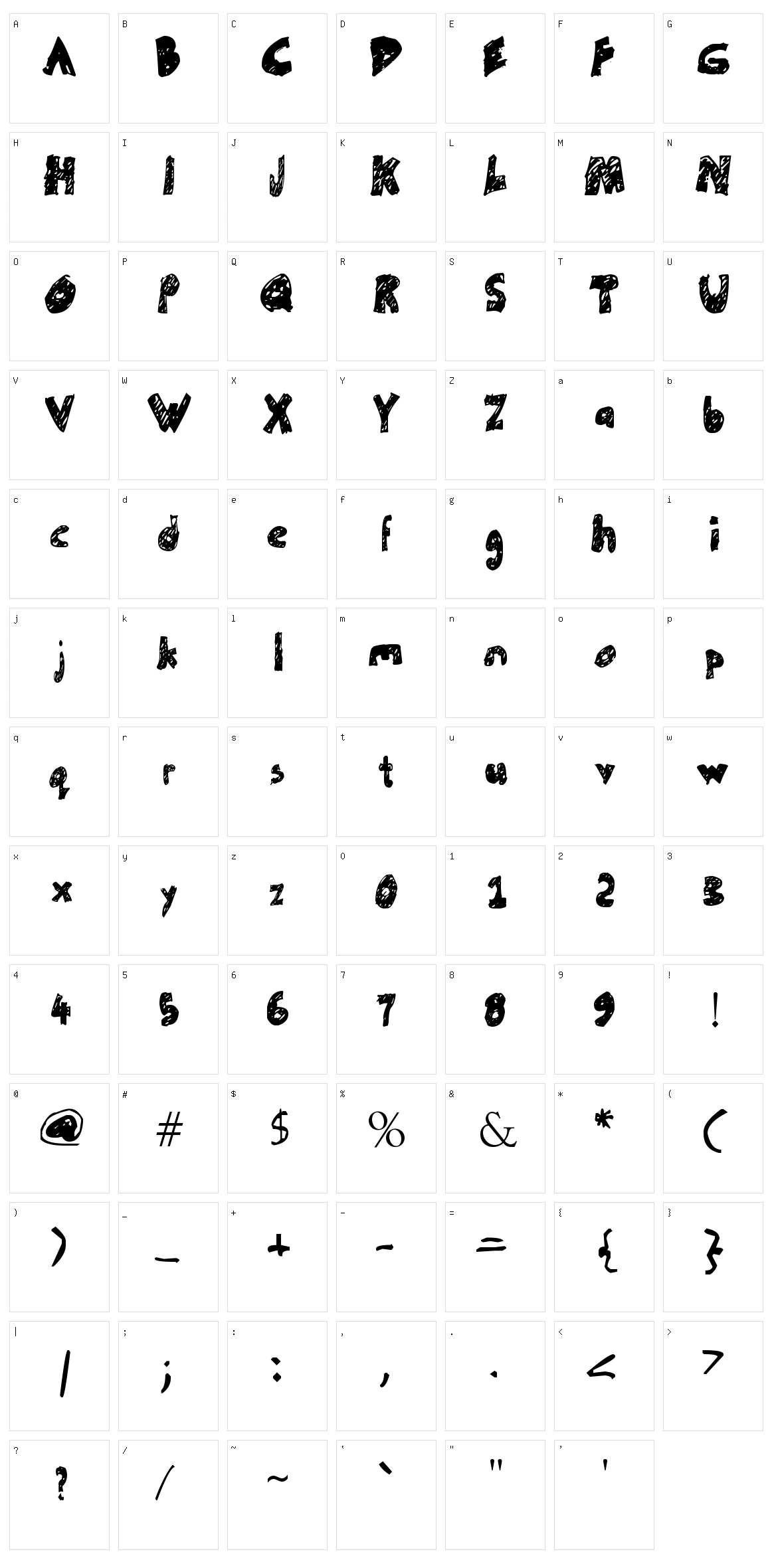
The free font Un-finished is carefully designed by Calvin, showcasing a thoughtful balance of creativity and usability and falls under the Trash font style. When you download the ZIP file, it contains only 24.25 KB of font files, making it lightweight and quick to download. Please review the license details below to understand permitted usage and distribution rights. If license information is not available, we recommend using this font for personal projects only or contacting the author directly for commercial usage permissions.